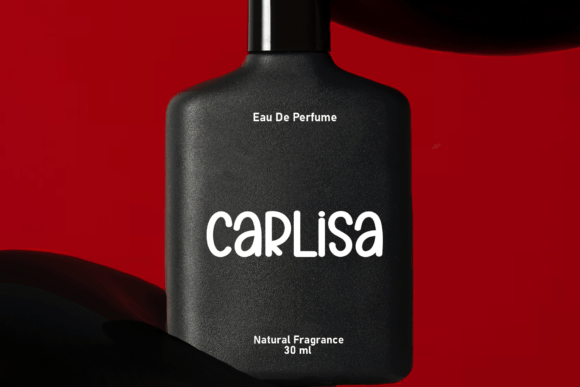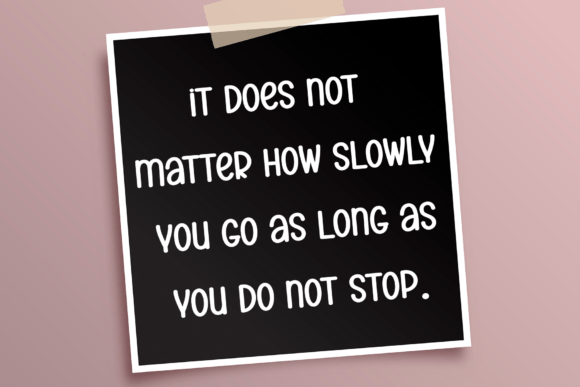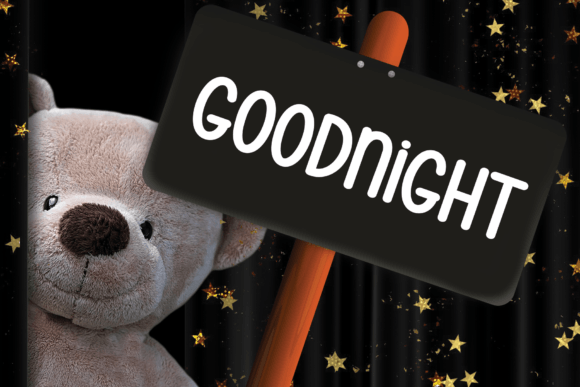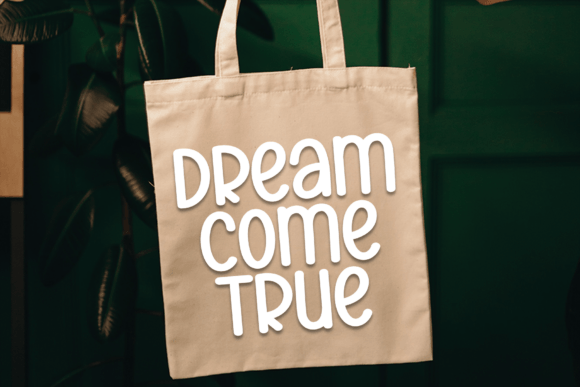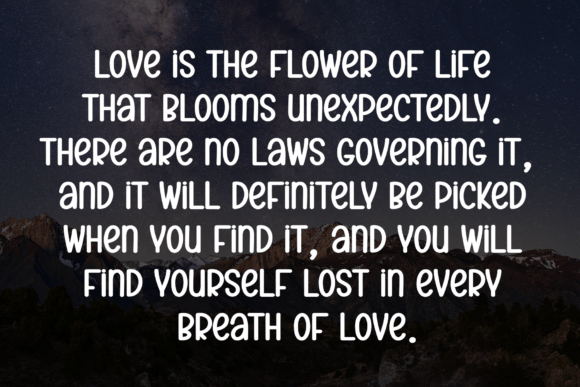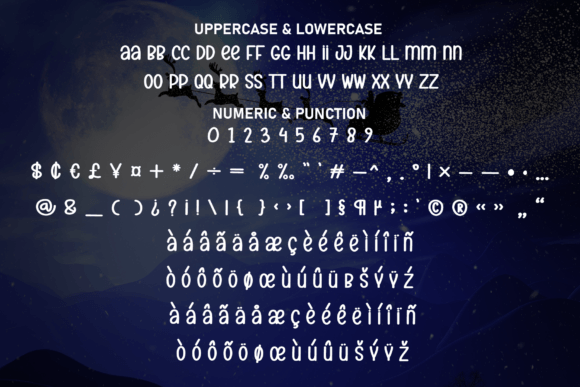
Introduction to Christmas Moonlight Font
As I was sipping hot cocoa by the fireplace, I stumbled upon a sparkly display font that instantly captured my holiday spirit – the Christmas Moonlight Font. Its whimsical curves and bold strokes made me feel like a kid again, eagerly awaiting Christmas morning. I couldn’t help but imagine how this font would bring magic to my holiday designs.
As a designer, I know how valuable a high-quality design resource can be. The Christmas Moonlight Font is a treasure trove of creativity, perfect for adding a touch of sparkle to your Christmas cards, invitations, and decorations. Its transparent background makes it easy to layer with other design elements, and the free download option means you can experiment with it on your next creative project.
With its playful, magical feel, the Christmas Moonlight Font is a must-have for any designer looking to add a dash of festive cheer to their holiday designs. Whether you’re creating a festive social media post or a holiday card, this font is sure to bring a smile to your face and a touch of magic to your design.
Key Features of Christmas Moonlight Font
- High-quality design resource ideal for creative projects and festive occasions
- Character set includes uppercase and lowercase letters, numbers, and special characters
- Unique, hand-drawn style with a whimsical touch, perfect for adding a personal touch to designs
Honest Review: Christmas Moonlight Font
As a designer, I’m always on the lookout for high-quality design resources to enhance my creative projects. The Christmas Moonlight Font has caught my attention, and I’m excited to share my thoughts on it.
- The font is incredibly versatile and can be used for a variety of designs, from festive holiday cards to elegant wedding invitations.
- The font may not be suitable for projects that require a more modern or minimalist aesthetic, as it has a traditional and elegant feel to it.
Overall, the Christmas Moonlight Font is a lovely addition to any designer’s toolkit. Its high quality and versatility make it a great choice for creative projects, especially those with a vintage or elegant feel. While it may have some limitations, it’s a great free resource that’s definitely worth checking out.
Some common use cases for the Christmas Moonlight Font include creating holiday-themed designs, such as Christmas cards and gift tags. Tips for getting the most out of this font include experimenting with different font sizes and styles, and combining it with other design elements to create a unique and eye-catching design. You can also use the font in a free download format, making it a great resource for designers on a budget.